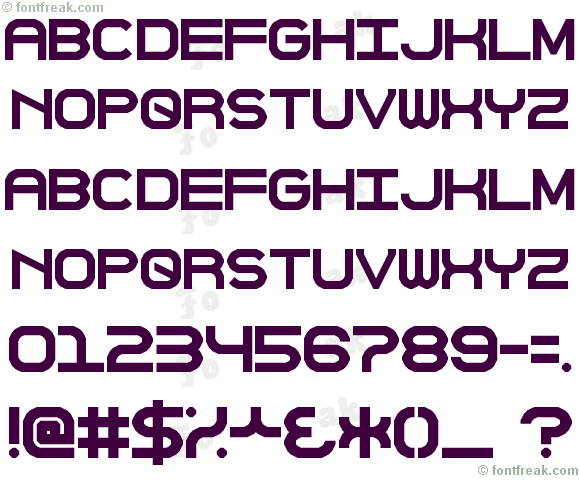
The Keepsake Days Regular
The Keepsake Days Regular font, designed by Andrew McCluskey in 2012, is a striking display typeface that exudes a sense of nostalgia and warmth. As a decorative font, it blends modern and vintage aesthetics, making it a versatile choice for a variety of creative projects. Characterized by its bold stroke weight and clean lines, this font features a balanced contrast that enhances readability while maintaining a unique visual appeal. The spacing is thoughtfully designed, providing clarity and elegance in every letterform.
Ideal for wedding invitations, The Keepsake Days Regular brings a charming touch to any romantic theme. Its playful yet sophisticated style makes it suitable for movie posters, where capturing attention is essential. Additionally, it shines in restaurant menus, adding a distinctive flair that can elevate the dining experience. Graphic designers looking to create engaging social media graphics will find this font a perfect match, as it conveys personality and warmth. Small business owners can also leverage The Keepsake Days Regular for branding projects, ensuring their materials stand out in a crowded marketplace.
What sets The Keepsake Days Regular apart is its ability to evoke emotion and nostalgia while remaining contemporary. Whether you are designing a heartfelt invitation or a bold promotional piece, this font captivates and engages, making it a memorable addition to your typography collection.